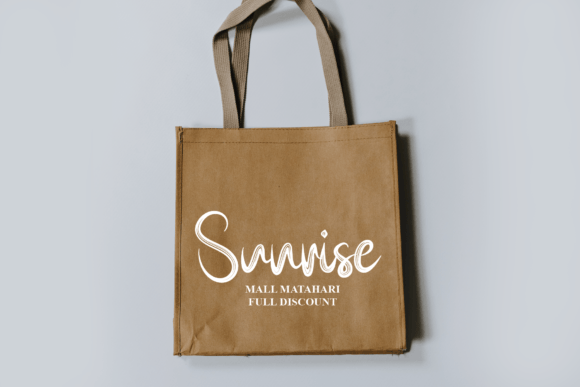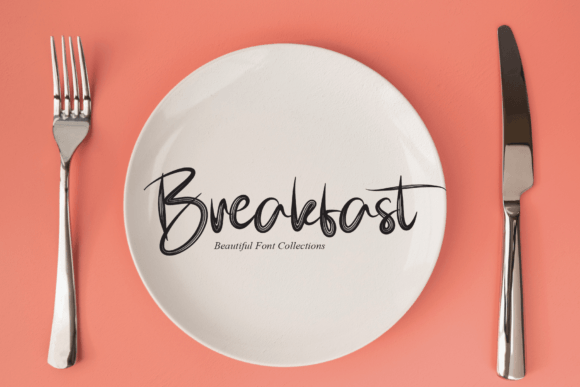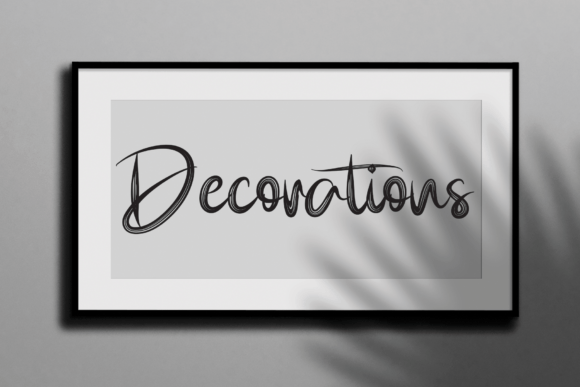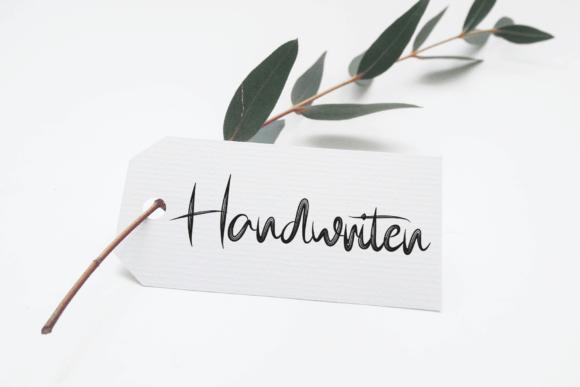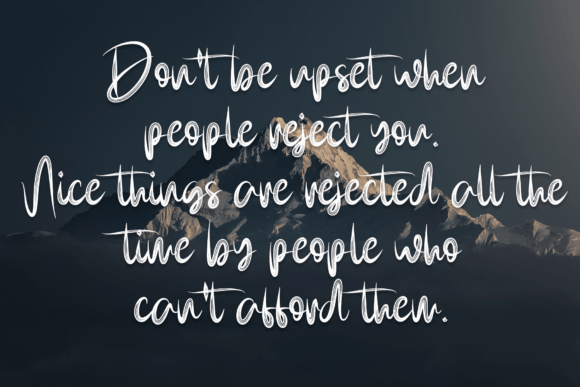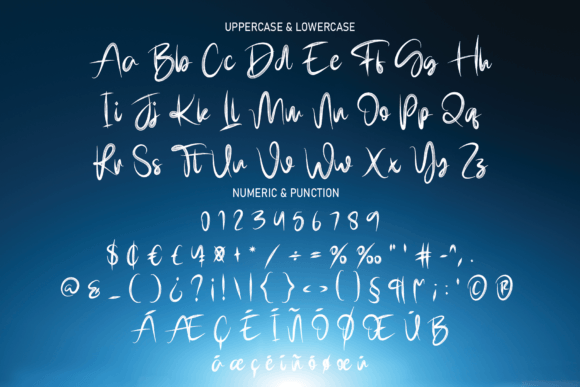
Introducing Brighter Font: The Perfect Handwritten Brush Script for Your Creative Projects
Are you tired of using the same old fonts for your greeting cards, invitations, and motivational quotes? Look no further than Brighter Font, a beautiful handwritten brush script font that is sure to add a personal touch to your designs. In this article, we’ll take a closer look at what makes Brighter Font so special and how you can use it to elevate your creative projects.
What is Brighter Font?
Brighter Font is a unique handwritten brush script font that looks and feels like it was written on a marker board. Its distinctive style is perfect for creating eye-catching and engaging designs that are sure to grab attention. With its bold and expressive strokes, Brighter Font is ideal for a wide range of creative projects, from greeting cards and invitations to motivational quotes and social media graphics.
Key Features of Brighter Font
- Handwritten brush script style: Brighter Font has a beautiful, hand-crafted feel that is sure to add a personal touch to your designs.
- Marker board-inspired look: The font’s distinctive style is reminiscent of writing on a marker board, giving it a fun and playful feel.
- Perfect for greeting cards and invitations: Brighter Font is ideal for creating eye-catching and engaging designs for special occasions.
- Great for motivational quotes and social media graphics: The font’s bold and expressive strokes make it perfect for creating inspiring and motivational quotes, as well as eye-catching social media graphics.
Why Choose Brighter Font?
So why choose Brighter Font for your creative projects? Here are just a few reasons:
- Unique and eye-catching style: Brighter Font has a distinctive style that is sure to grab attention and set your designs apart from the crowd.
- Easy to read and understand: Despite its bold and expressive strokes, Brighter Font is easy to read and understand, making it perfect for creating designs that need to communicate a message.
- Versatile and flexible: Brighter Font can be used for a wide range of creative projects, from greeting cards and invitations to motivational quotes and social media graphics.
- High-quality and professional: Brighter Font is a high-quality, professional font that is sure to give your designs a polished and finished look.
How to Use Brighter Font in Your Designs
Using Brighter Font in your designs is easy! Here are a few tips to get you started:
- Pair it with other fonts: Brighter Font looks great when paired with other fonts, such as sans-serif fonts or serif fonts. Experiment with different combinations to find the one that works best for your design.
- Use it for headings and titles: Brighter Font is perfect for creating eye-catching headings and titles. Use it to add a bold and expressive touch to your designs.
- Experiment with different colors and textures: Brighter Font looks great in a variety of colors and textures. Experiment with different combinations to find the one that works best for your design.
If you’re a designer or crafter looking to get the most out of Brighter Font, here are a few tips and tricks to keep in mind:
- Use it for DIY projects: Brighter Font is perfect for DIY projects, such as making your own greeting cards, invitations, and decorations.
- Experiment with different brush effects: Brighter Font has a beautiful, hand-crafted feel that is perfect for creating brush effects. Experiment with different techniques to find the one that works best for your design.
- Use it for commercial projects: Brighter Font is perfect for commercial projects, such as creating branding materials, advertisements, and packaging.
In conclusion, Brighter Font is a beautiful handwritten brush script font that is perfect for a wide range of creative projects. With its distinctive style, bold and expressive strokes, and high-quality, professional finish, Brighter Font is sure to add a personal touch to your designs. Whether you’re a designer, crafter, or DIY enthusiast, Brighter Font is a great choice for anyone looking to create eye-catching and engaging designs.